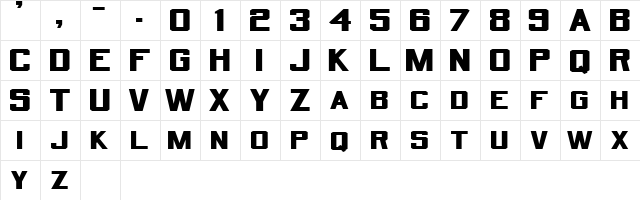
QuarterbackExtended Regular
Design Context for QuarterbackExtended Typeface
QuarterbackExtended offers clean, dependable letterforms without strong stylistic allegiance, making it a practical choice for designers who need flexibility.